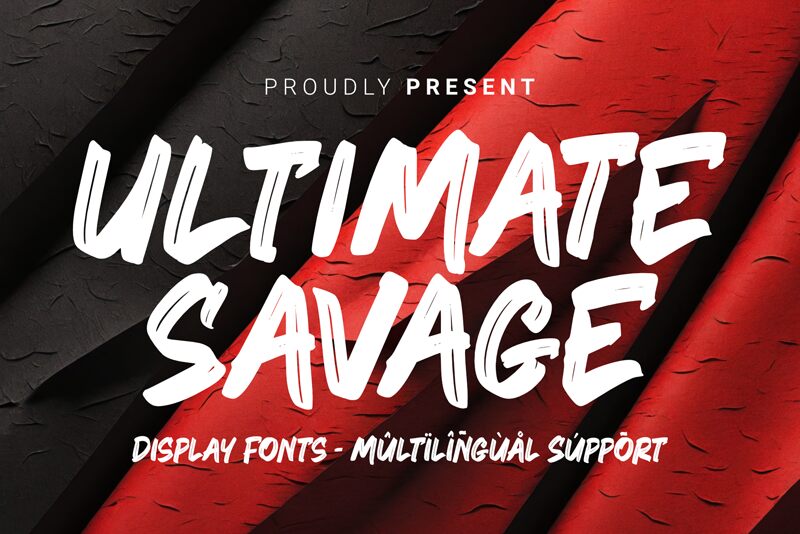
Ultimate Savage font by DumadiStyle is a free brush font with rugged, dynamic, and energetic character. Carefree, wild letters combine straight and round strokes in a visually appealing way. The font can instantly add an aggressive and expressive look to the typography composition it is implemented in.
Applications of such unique font styles are very limited, yet the Powerful Megaphone font can still be effectively used in the right project. If a rocky look is what exactly suits your design, use this font for a poster, sign, logo, illustration, social media image, greeting card, or even a magazine cover.